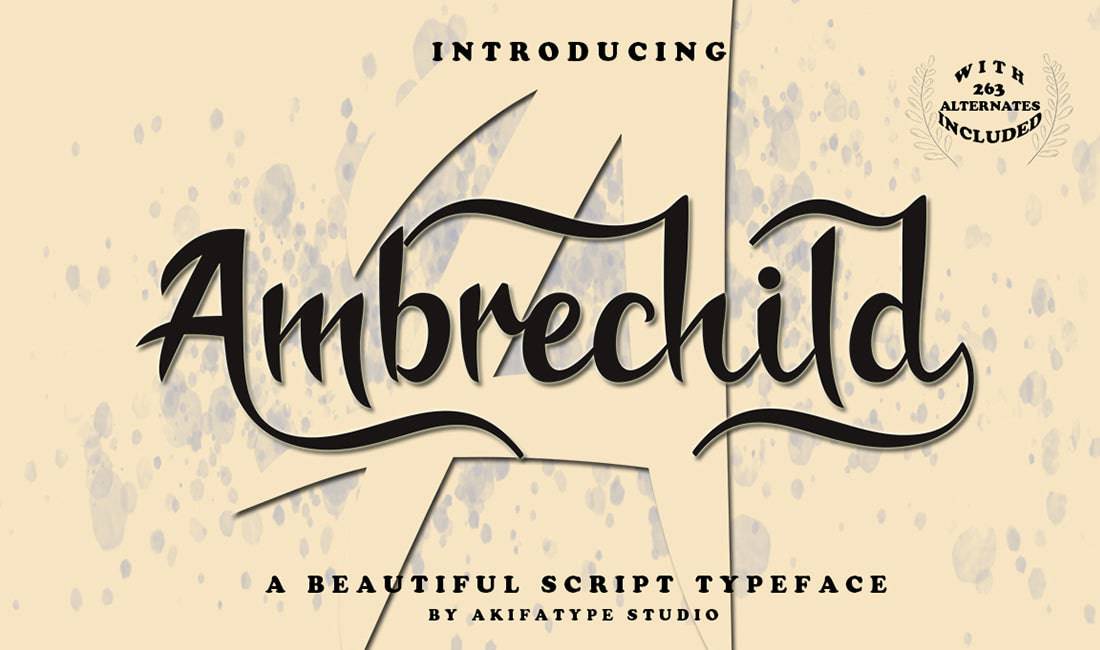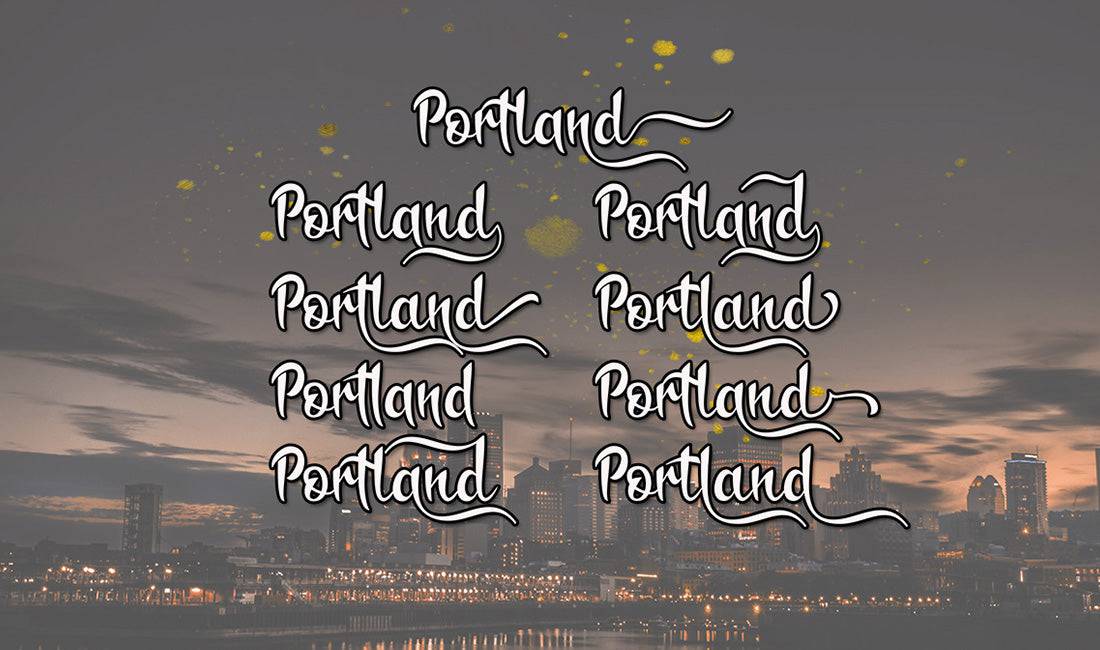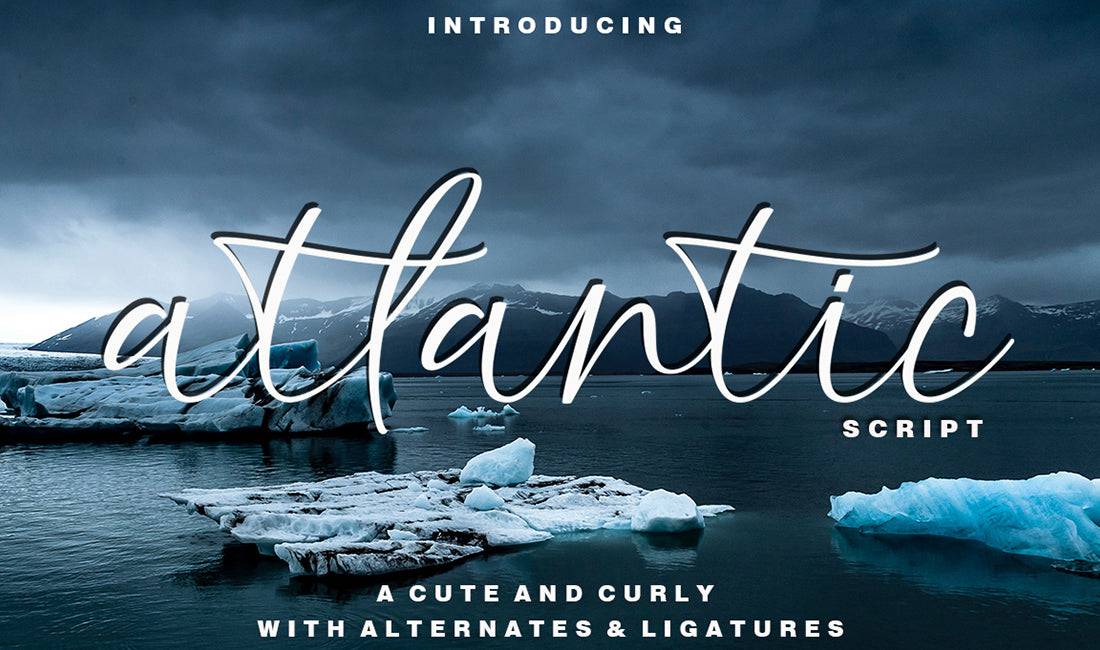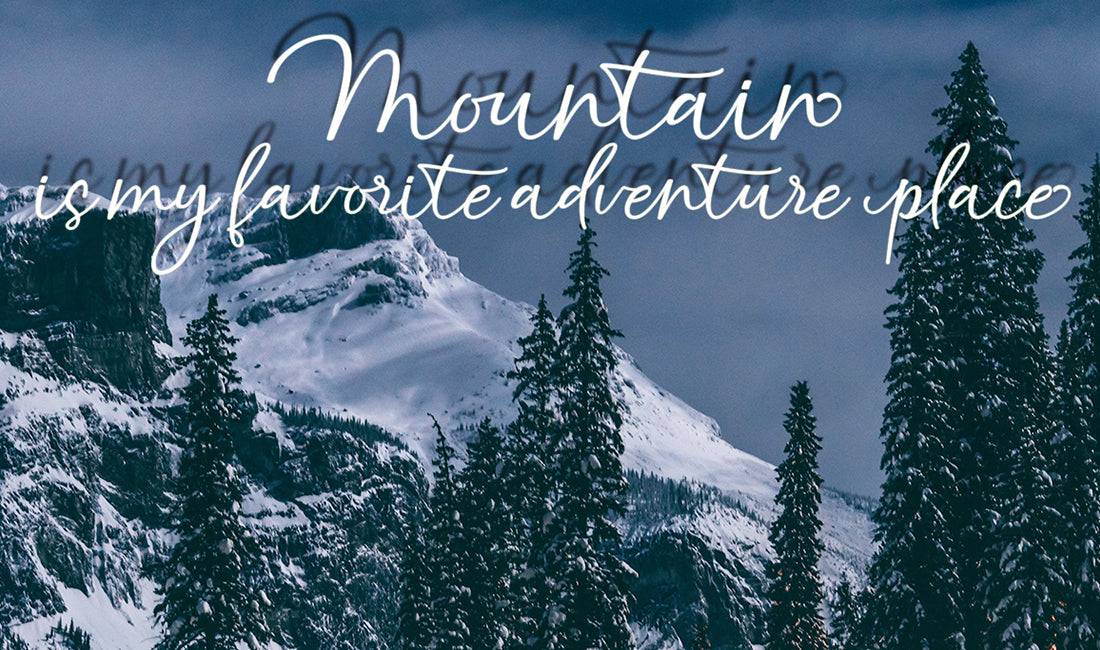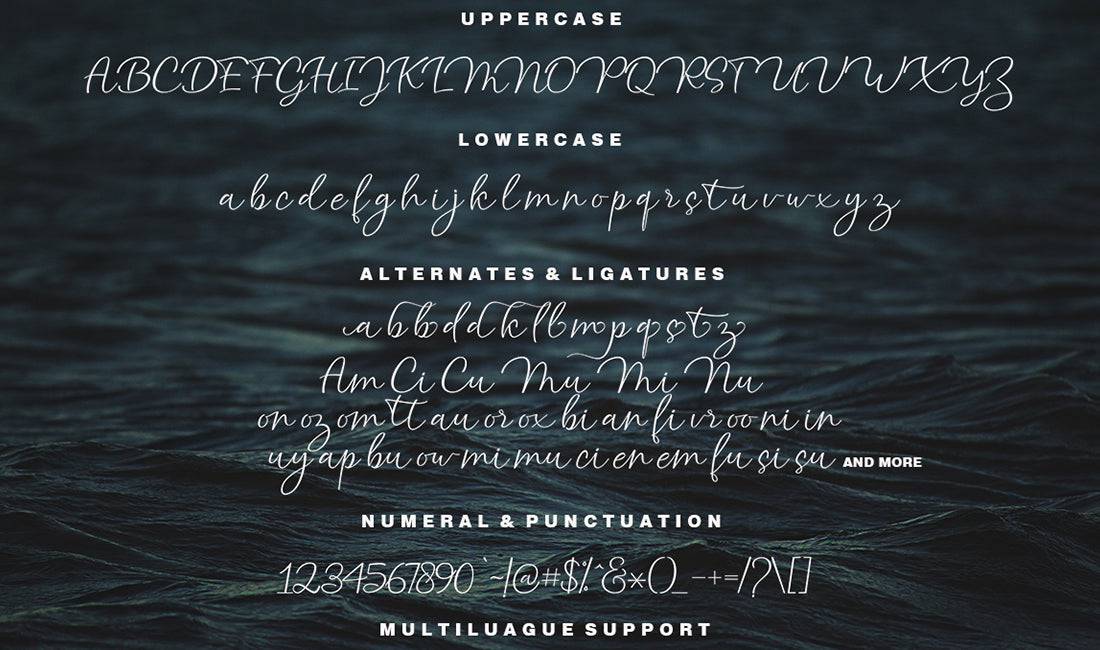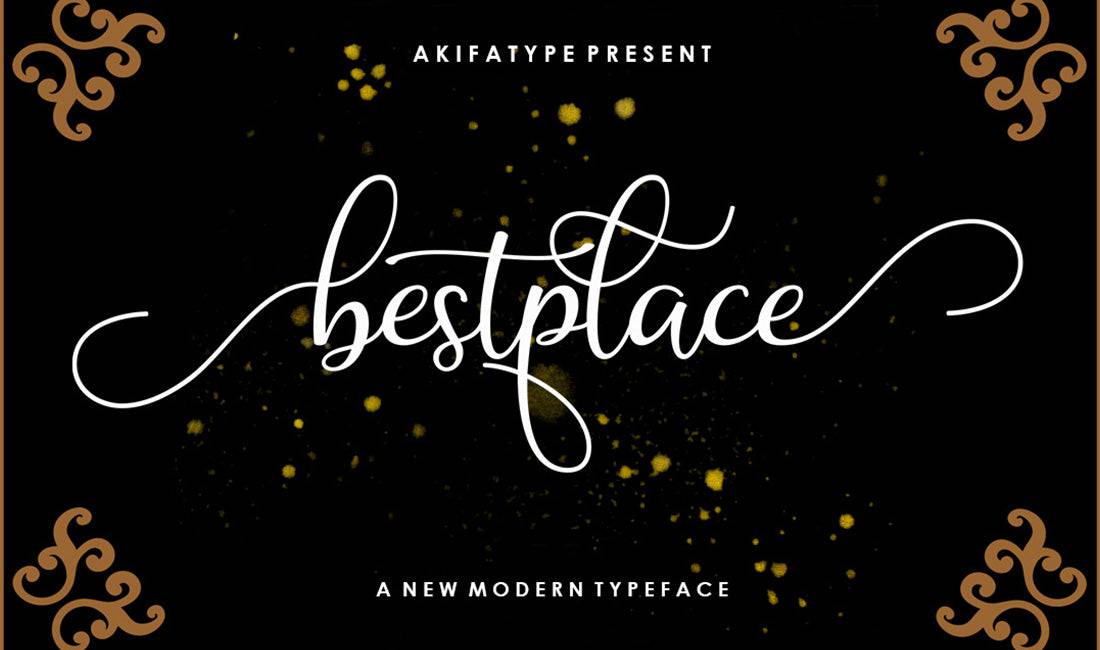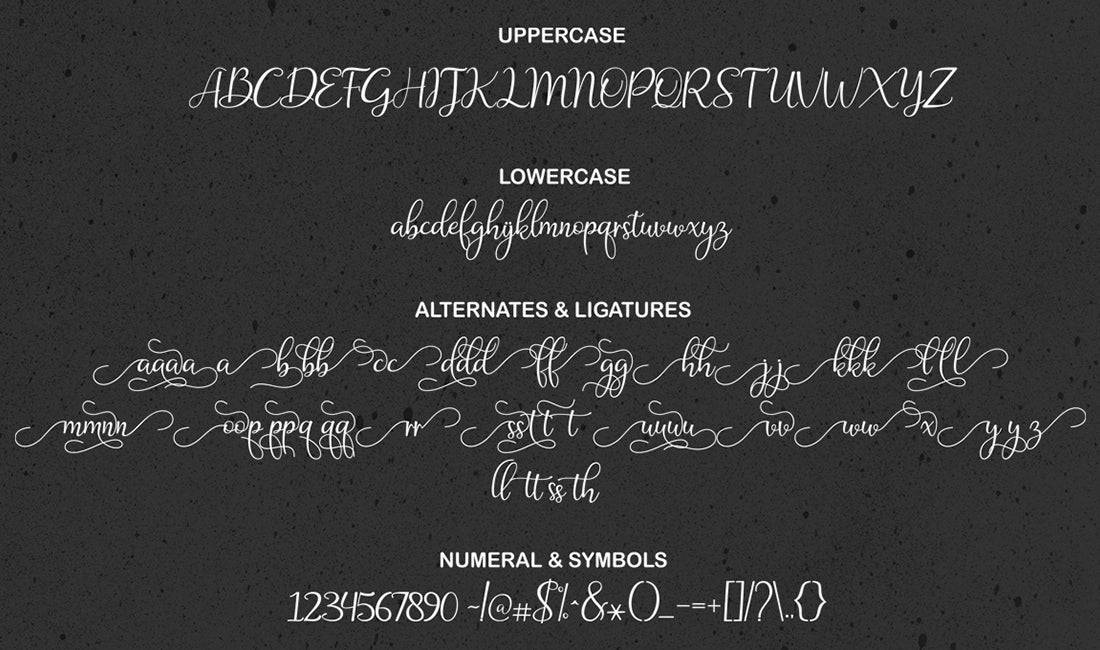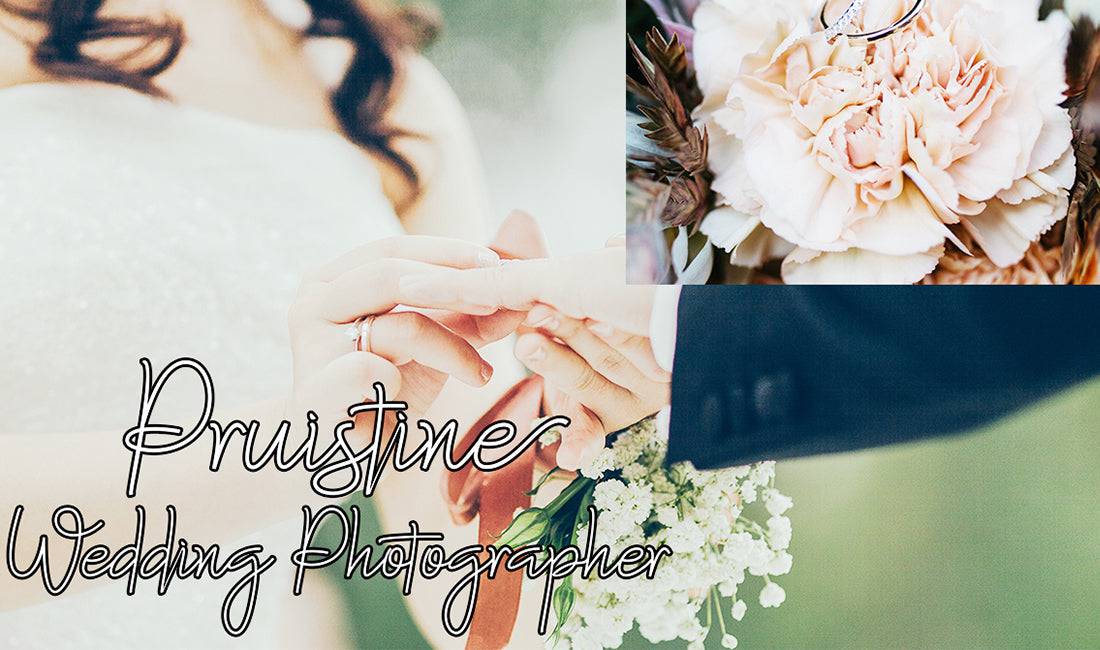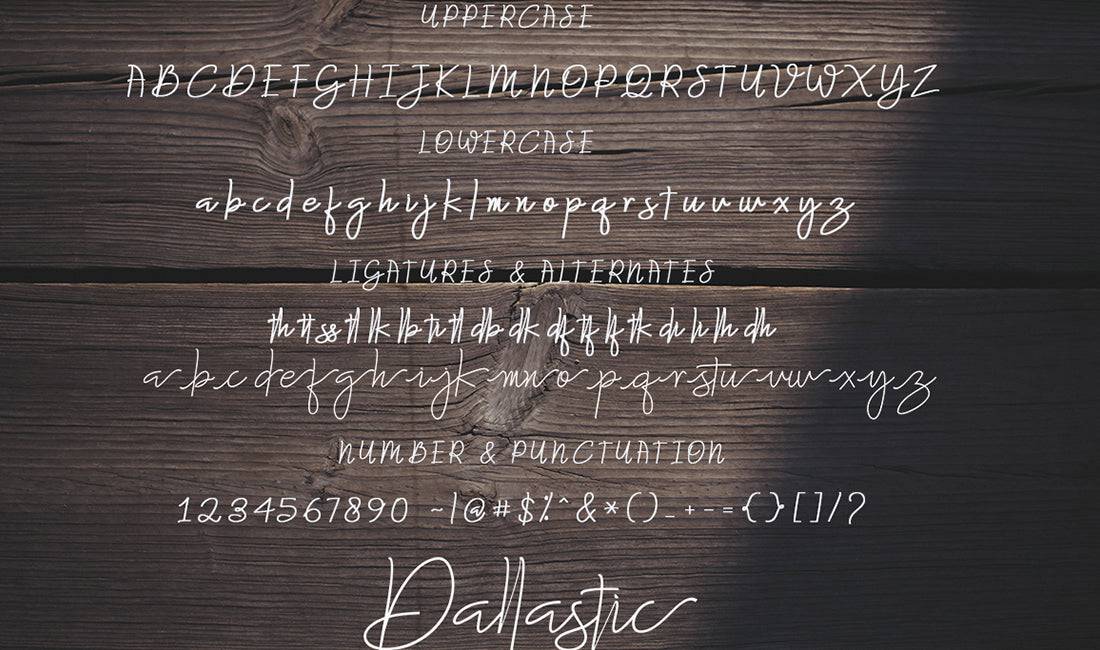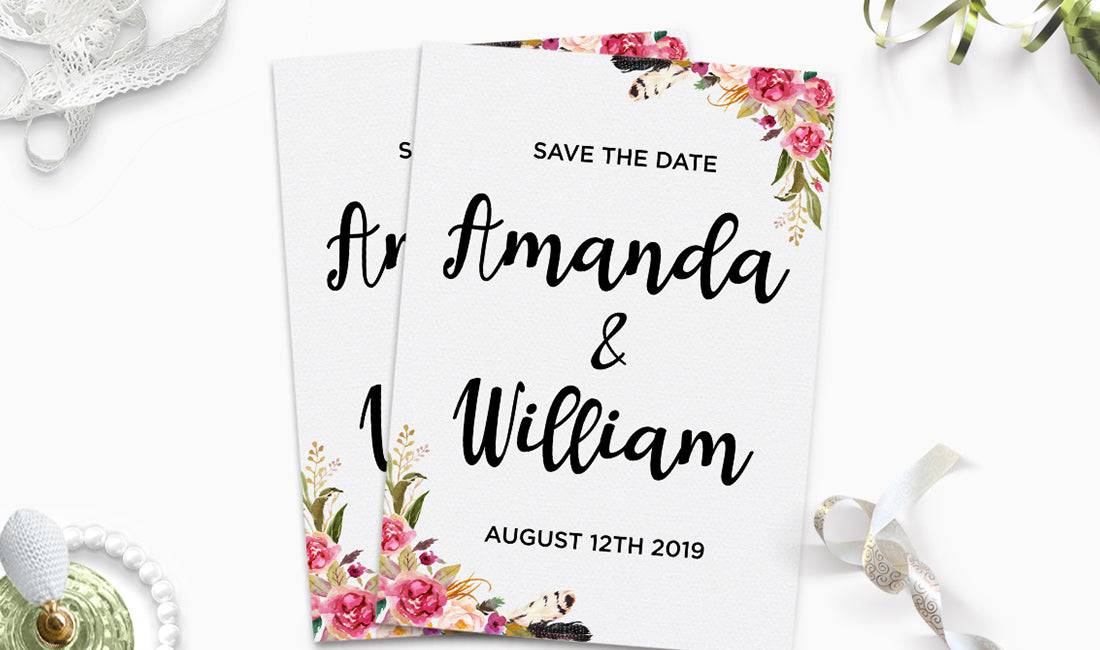
The Handlettered Font Bundle is a beautiful collection of 17 different romantic fonts ranging from bold to elegant to vintage.
Most fonts come with alternates and ligatures, as well as support multiple languages.
Highlights:
- 17 elegant romantic script fonts.
- Variety of styles - bold, elegant, fun, vintage.
- The fonts are perfect for all sorts of creative projects like wedding invitations, T-shirts, letterheads, signs, flyers, badges and more!
- Multiple alternates and ligatures.
- Multi-lingual support.
- Ambrechild Font
- Atlantic Font
- Bestplace Script Font
- Dallastic Script Font
- Dallastic Script Slant Font
- Dealova Font
- Fantabulous Font
- Farmfresh Script Font
- Funtastic Script Font
- Hinella Script Font
- Maitlyn Font
- Merciana Font
- Nathalia Font
- Nathalia Love Font
- Nathalia Loveline Font
- Nathalia Outline Font
- Nathalia Script Font